What Font Does Chanel Use?
What font does the Chanel logo use? Today, we take a look at the brand's iconic logo, and then we'll share some great alternatives to the Chanel logo font that you can download from Envato Elements.
Chanel is easily one of the most recognisable fashion brands in the world. Today, we'll look at this incredibly simple but effective logo and logo font.
What Is the Chanel Logo?
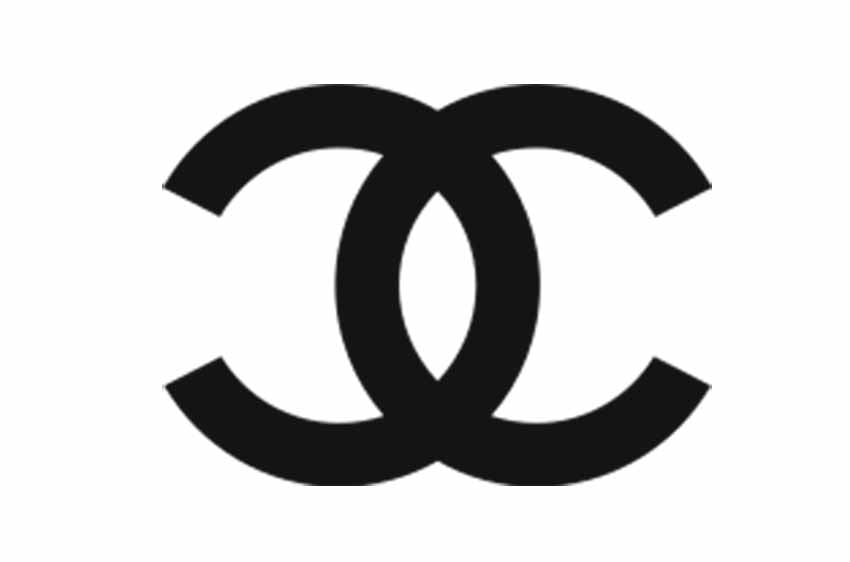
While many brands have changed or tweaked their logo at least once in their lifespan, Chanel has not. The luxury fashion brand has been using its logo since the brand's inception in 1925. And that logo has earned the label "iconic".
You see two 'C's backing each other and overlapping, and you know: that's Chanel. More specifically, the two Cs represent the initials of the brand's founder, Coco Chanel, who came up with the monogram for the launch of the brand in 1925.
But of course, to be authentically Chanel, the 'C's can't be just any old font or colour. And this brings us to the big question of the day: what is the Chanel font logo that sometimes accompanies the monogram?
What Font Does the Chanel Logo Use?
The Chanel font did not begin its life in a foundry as so many fonts do. It was in fact born from Coco Chanel’s handwriting, and of course it was quickly copyrighted. However, this simple, elegant, and much beloved font inspired many creators to design their own versions.
One of the most popular, the Couture font, was designed by Chase Babb in 2012 and offers two styles: bold and bold italic. Now that we know a bit about the Chanel font, let's look at some wonderful alternatives.
Chanel Font Alternatives
Emelind Modern Logo Sans is a terrific example of an excellent Chanel font alternative. Emelind includes upper and lowercase characters, numbers, punctuation, and multilingual support.
Belinda Modern Sans is a great alternative to the Chanel logo font. This modern sans serif offers softly rounded corners as opposed to sharp clean corners, so if you're looking for a slightly warmer font, this is a great choice.
Invisible Sans Serif Font Family is a great choice if you're looking to create a Coco Chanel font. The typeface contains nine different weights that allow you to experiment to see which one suits your needs.
Download Bergman Sans when you need a Chanel font alternative. This classic contemporary sans serif includes upper and lowercase characters, numbers, punctuation, and multilingual support.
Sandbox is a great alternative to the Chanel font. It's more condensed than that font, but it does feature the same clean lines and offers two different weights.
With 12 fonts available in six different styles, Noirden is a solid contender when you're looking for fonts similar to the Coco Chanel font.
How's this for a cool alternative to the Coco Chanel font? Giga Sans is a completely modern and eye-catching font family that offers nine different weights ranging from thin to black, with matching italics.
One of the best options on this list when it comes to choosing a Chanel logo font alternative, Francy Modern Sans Display Font has the simple style and charm associated with the Chanel font.
9. Gilgan Sans Serif (TTF, OTF, WOFF)
Think what amazing projects you can create with Gilgan Sans Serif. This clean and elegant font comes in three stylistic variations: solid, outline, and inline. Great for mixing and matching.
10. Maxima Nouva Sans Serif Font Family (TTF, OTF, WOFF)
And finally, we have the ever-so-elegant Maxima Nouva Sans Serif Font Family. Maxima is an elegant and modern font family offering nine styles and weights. The font includes upper and lowercase characters, numbers, punctuation, and multilingual support.
Today, we answered questions like "What is the Chanel font?", and we shared some useful alternatives to the Chanel font from Envato Elements.